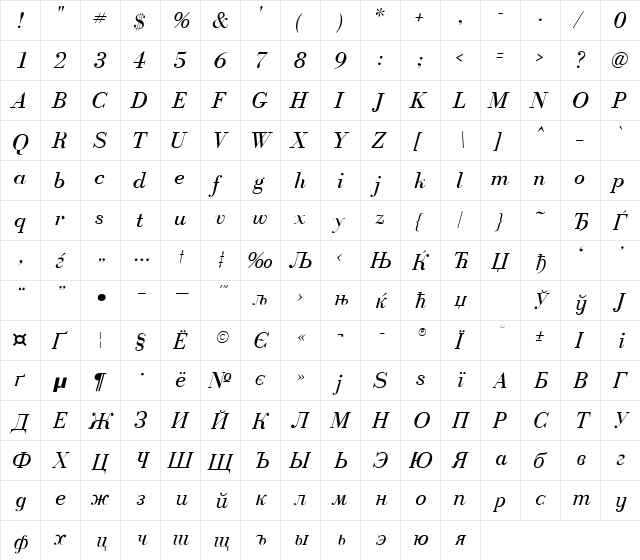
BodoniCyrillicFWF Italic
Design Context for BodoniCyrillicFWF Typeface
BodoniCyrillicFWF offers clean, dependable letterforms without strong stylistic allegiance, making it a practical choice for designers who need flexibility. Its italic angle brings a sense of urgency and motion to the letterforms.
Pro Tip: Use BodoniCyrillicFWF for emphasis, pull quotes, and subheadings where its slanted energy can add rhythm to the layout.